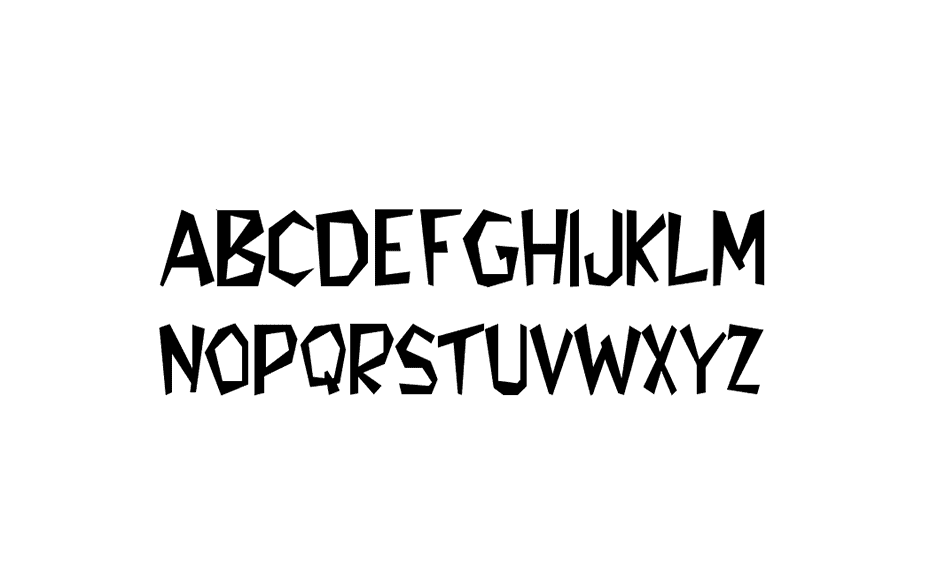
Flintstone Font is a fancy cartoon typeface that uses subtle curves and sharp angular edges to create a balance between minimalism and quirk and is a perfect choice for an eye-catching heading.
It has a cartoon shape in which the corners are bold with sharp edges. And the inner structure is thin in some places and thick in others. So, this is really its basic identity.
Moreover, all the characters are in capital form. So, these features add a fancy touch to the whole design which really adds value. And help you make unique designs instantly.
Having so many unique characters in a font proves that the designer has spent a lot of time on it.
With this elegant font help, you can easily design brand logos, kids bags, stationery print, unique emblems, card printing, game graphics, product designs, product packaging, t-shirt printing, cartoon posters, etc.
This font works great with other comic fonts also, For example, McLaren Font by Brian J. Bonislawsky and Unkempt Font by Sideshow foundry
It comprises only a single regular style that has more than upper case letters, special characters, and unique glyphs. Having 65 glyphs or 393 characters is an appropriate option for any design.